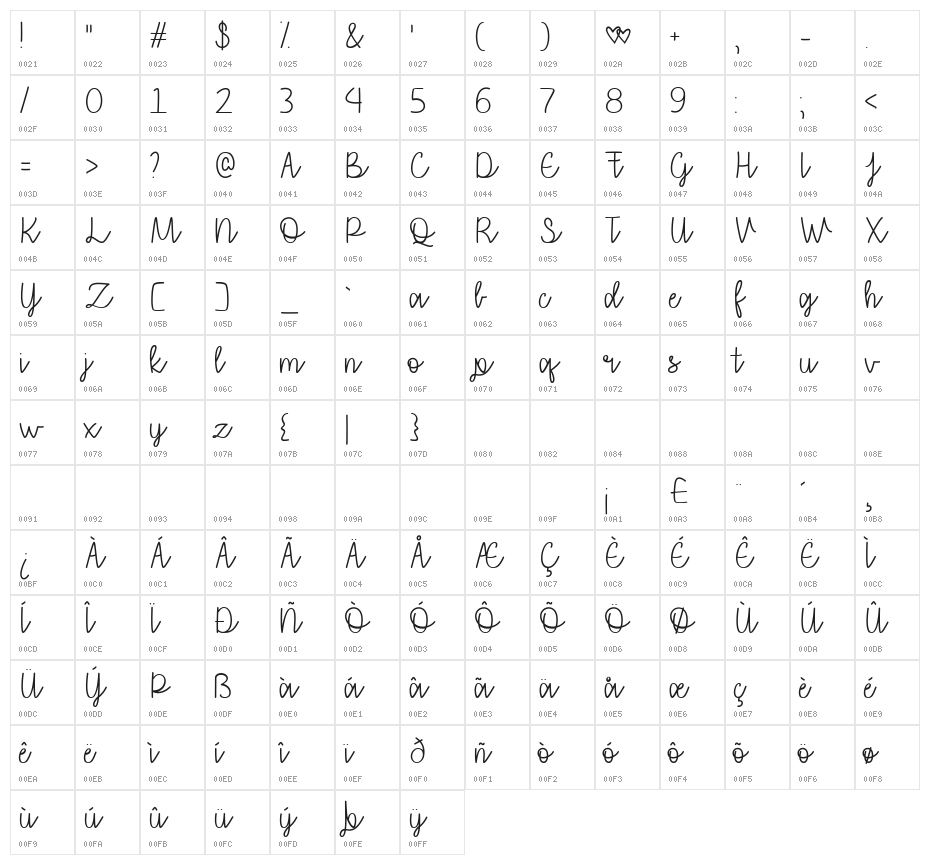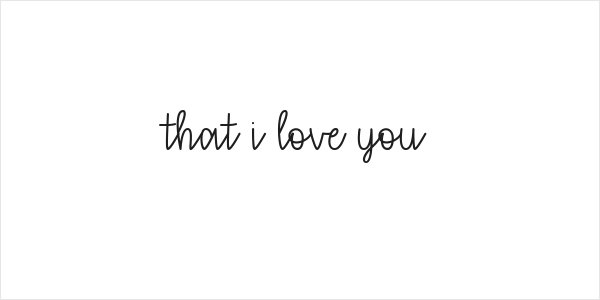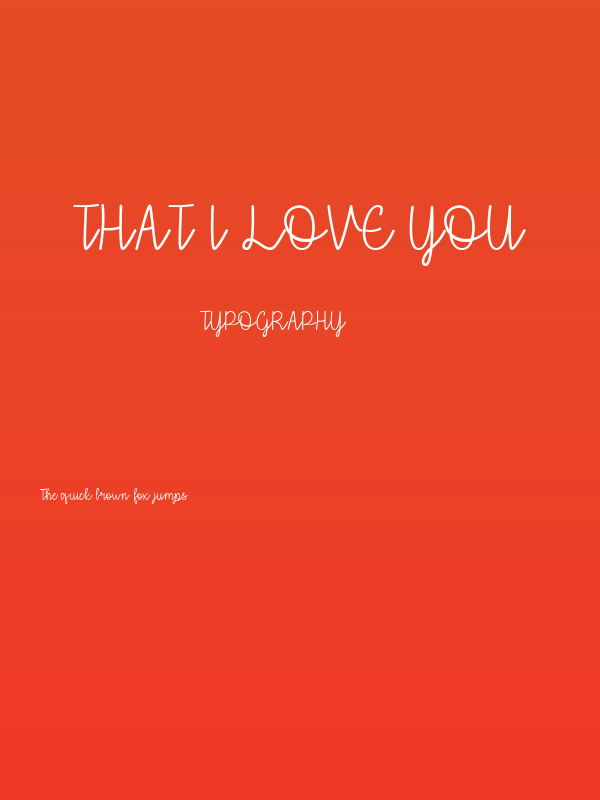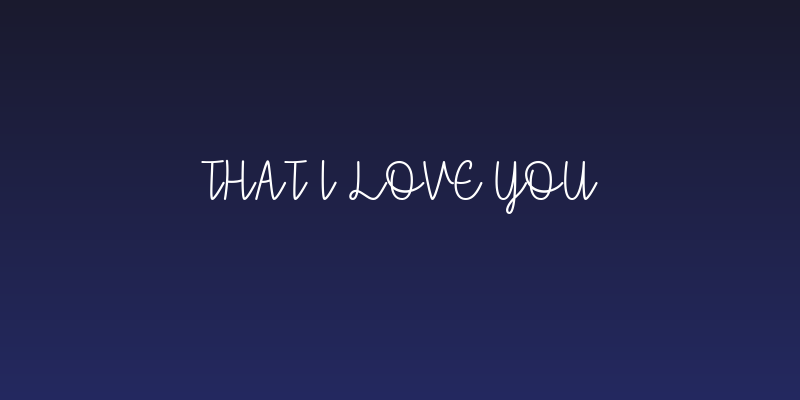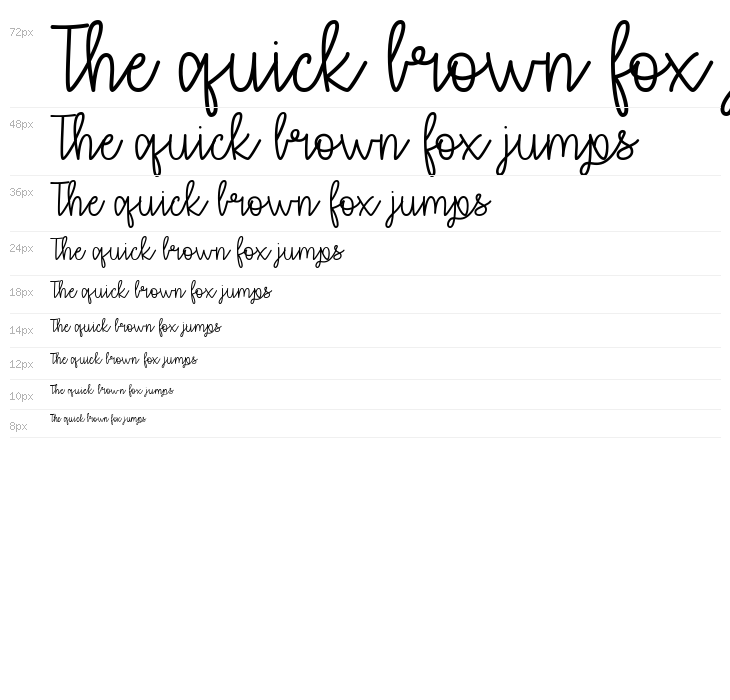
that i love you Font
that i love you Description
This font features a playful and casual handwritten style, characterized by smooth, flowing lines and a consistent stroke width. The uppercase letters are tall and slightly narrow, while the lowercase letters maintain a friendly and approachable appearance. The numerals are clear and easy to read, matching the overall style of the alphabet. Special characters are included, adding versatility for various design needs. The font's informal and relaxed vibe makes it suitable for projects that require a personal touch.
Overall StyleCasual
Use CaseHeadlines, Logos, Informal Text
Proposed ProjectsIdeal for greeting cards, personal branding, social media graphics, and informal invitations.